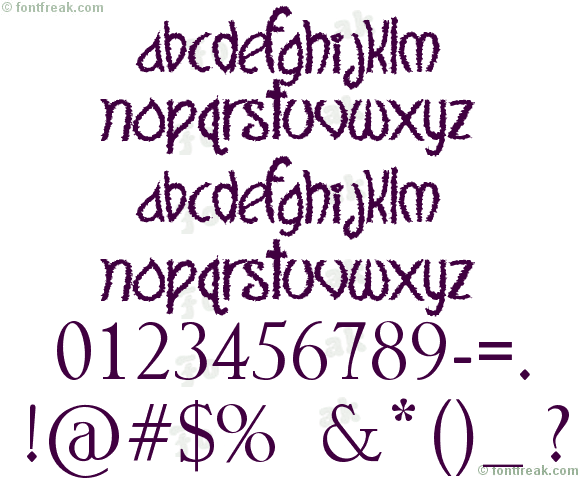
Quite Mighty
The Quite Mighty font, designed by Jonathan S. Harris, is a unique display typeface that embodies a playful yet robust character. This font features a distinct handwritten style, characterized by its irregular strokes and organic shapes. The uneven stroke weight adds a lively dynamism to the letterforms, making it visually engaging. The spacing between characters is thoughtfully designed to maintain legibility while enhancing its artistic flair, perfect for capturing attention.
Quite Mighty is well-suited for a variety of creative applications. Its bold and expressive nature makes it ideal for use in wedding invitations, where it can add a personal touch to the design. Additionally, it shines in movie posters, where its quirky style can evoke a sense of fun and creativity. Restaurant menus can benefit from this font, as it provides a unique identity that resonates with a casual dining experience. Furthermore, online content creators looking to add a distinctive flair to their graphics will find this font to be an excellent choice for social media posts or promotional materials.
In summary, the Quite Mighty font stands out for its whimsical yet assertive design, making it a fantastic addition to any designer's toolkit. Its playful character combined with practical usability sets it apart from standard typefaces, offering a fresh alternative that can elevate any creative project. Whether you’re designing for print or digital platforms, Quite Mighty is sure to leave a lasting impression.